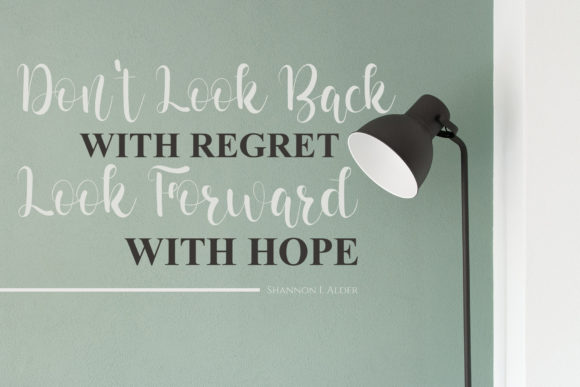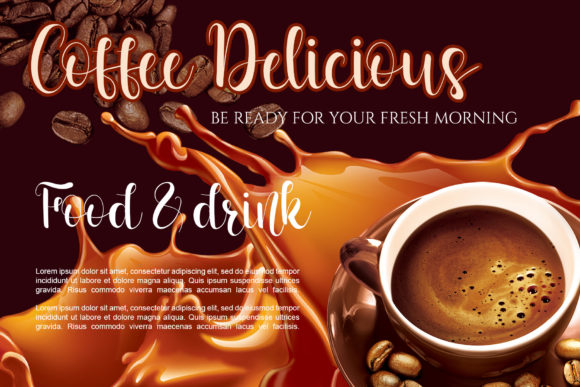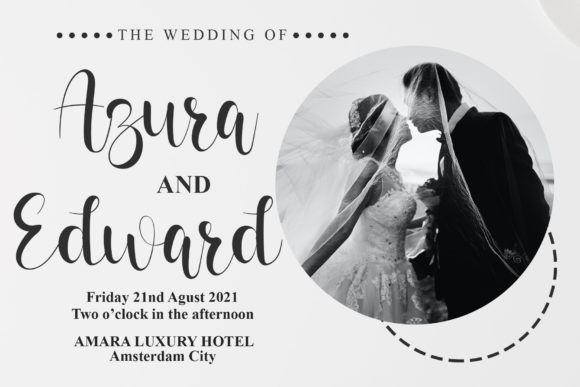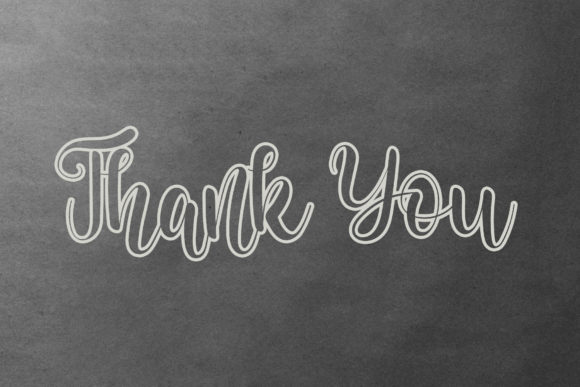
The Perfect Brushstroke for Your Next Creative Project
Have you ever been browsing through your favorite craft store, searching for the perfect font to give your handmade cards and invitations a touch of elegance? The thrill of finding that one special font that makes all the difference is a feeling we’ve all experienced. And that’s exactly what we’re here to talk about – the enchanting Berliana Script Font.
This beautiful handwritten font is more than just a pretty face; it’s a versatile tool for designers and crafty enthusiasts alike. With its delicate swashes and sweet curves, Berliana Script Font is perfect for adding a touch of whimsy to your letterheads, titles, and stationery. Whether you’re a seasoned pro or a DIY novice, this font is sure to bring a smile to your face and a professional touch to your projects.
Berliana Script Font Key Features
- Unique Characteristics: Elegant and cursive script font with a touch of sophistication, perfect for creating a luxurious and high-end look
Berliana Script Font Review
I’ve had the chance to work with the Berliana Script Font, and I must say it’s a delightful addition to any design project. Here are some of its strengths: ✨
- Beautifully crafted script letters that evoke a sense of elegance and sophistication.
- Extremely versatile, suitable for a wide range of applications, from invitations to branding materials.
- Includes a variety of glyphs, including swashes and flourishes, which add a touch of personality to your designs.
However, I do have some reservations: ⚠️
- The font’s readability can be compromised at smaller text sizes, which may be a concern for certain applications.
Overall, I’m quite impressed with the Berliana Script Font. It’s a well-designed font that can add a touch of luxury and sophistication to your designs. While it may have some limitations, its strengths far outweigh its weaknesses, making it a great addition to any designer’s toolkit.
Tips for Getting the Most Out of Berliana Script
Use Berliana Script for:
- Quotes and inspirational graphics
Experiment with different font sizes and colors to create a unique look.